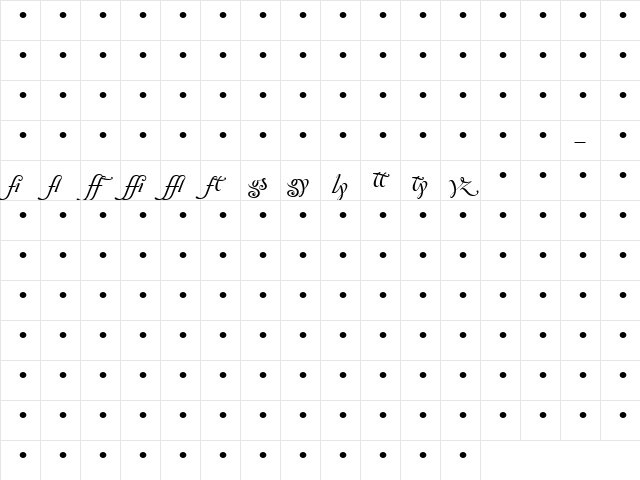
Complete ZanzibarLigatures Regular glyph index. Displaying only characters natively supported by ZanzibarLigatures Regular font.
ZanzibarLigatures is a composed and adaptable typeface that performs quietly and consistently across a wide range of design contexts.